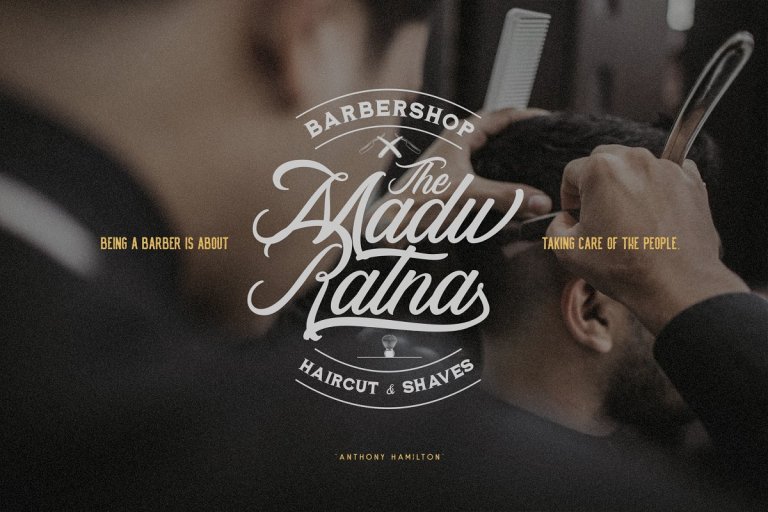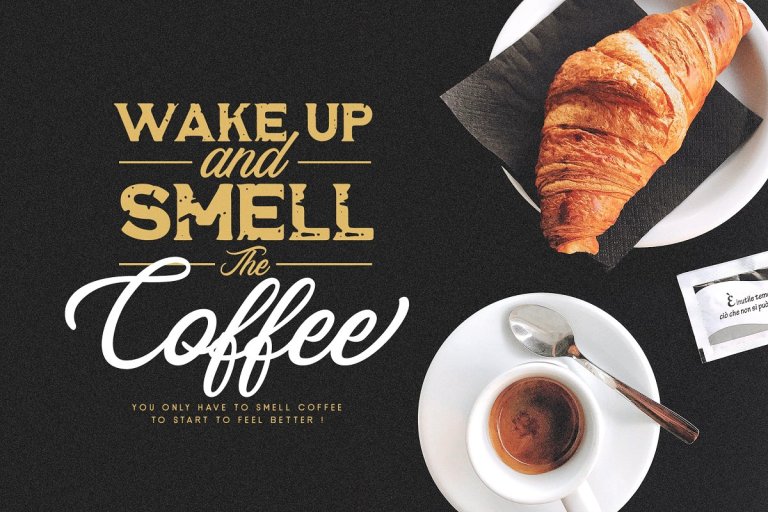
Rosewell Script Font
Hello friend! Introducing Rosewell Font! It is was designed and shares by Ardyanatypes. Rosewell Script Font, presented with 7 font variations with different accents. Rosewell has a very interesting font type and sans serif script to be combined so that it is more elegant and amazing. Rosewell also has two different characters in each sans serif letter including clean and rough to give a retro impression. Rosewell itself was inspired by a variety of handwriting arts that are often ornamented in cafes and lounges and also eccentric urban mural arts so that Rosewell has its own charm when used. Author keep this font looking elegant, classy, easy to read, stylish, easy to remember, and easy to use. Rosewell is the best choice for logo design, quotes, album covers, posters, business cards, and many other design projects.